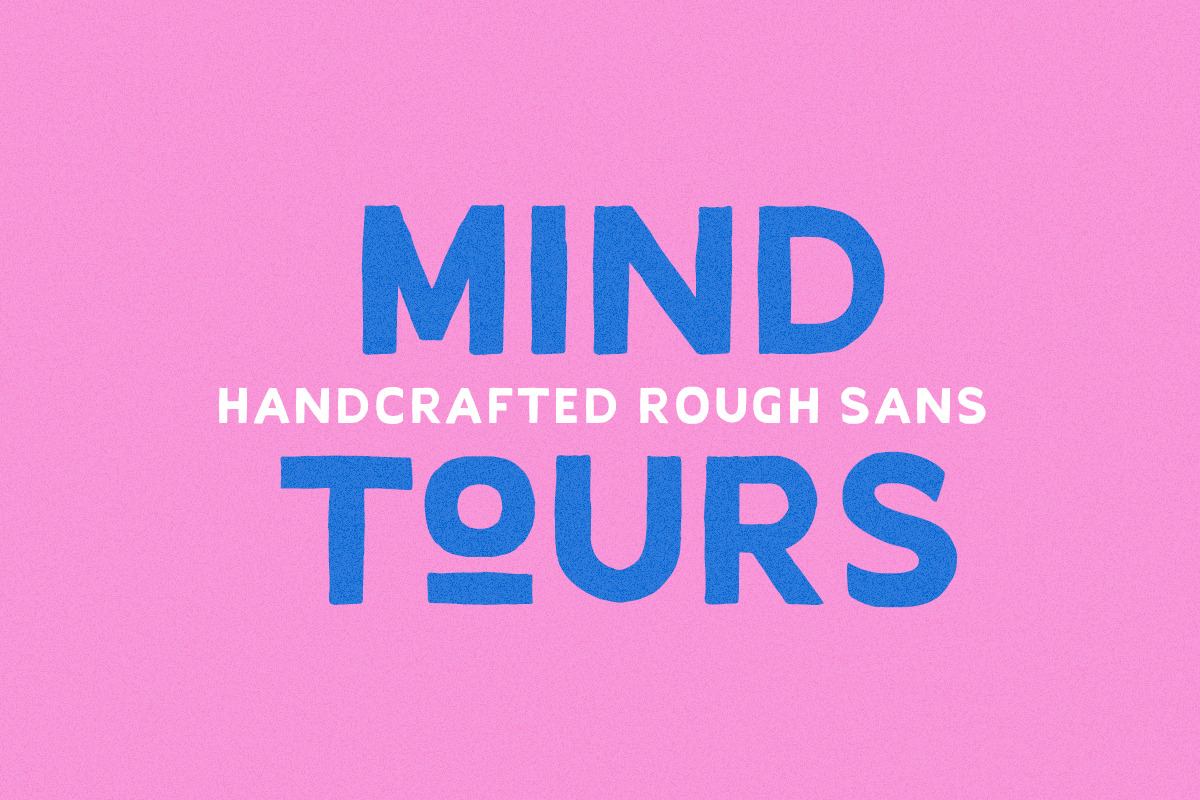
Mind Tours - Handcrafted Sans Font Free Download is a unique and playful sans-serif typeface that combines a handcrafted aesthetic with clean, modern design. Its rounded edges and slightly imperfect letterforms give it a warm and organic feel, while still maintaining clarity and readability. This font is perfect for branding, social media graphics, posters, invitations, and any design project that needs a personal and creative touch.
Whether you're working on a casual brand identity, designing a quirky logo, or creating promotional materials, Mind Tours brings a fresh, approachable vibe to your typography.